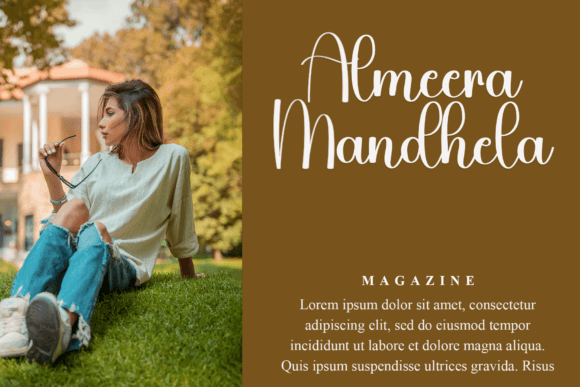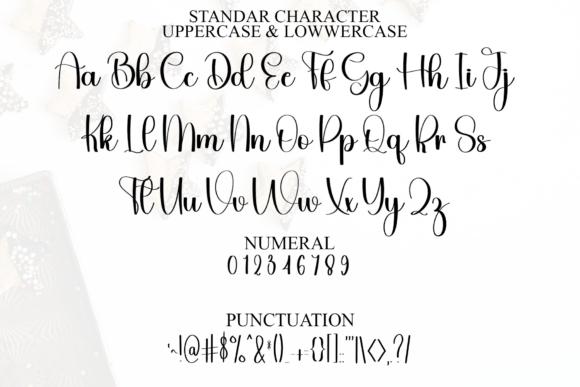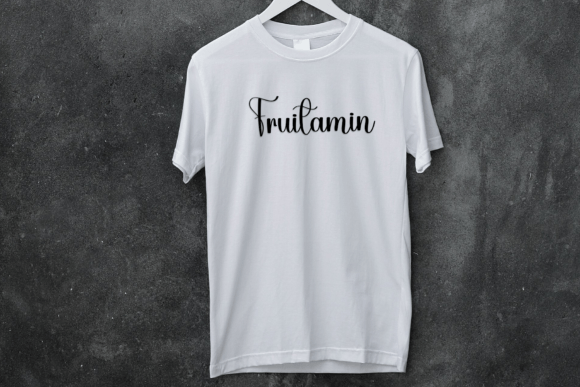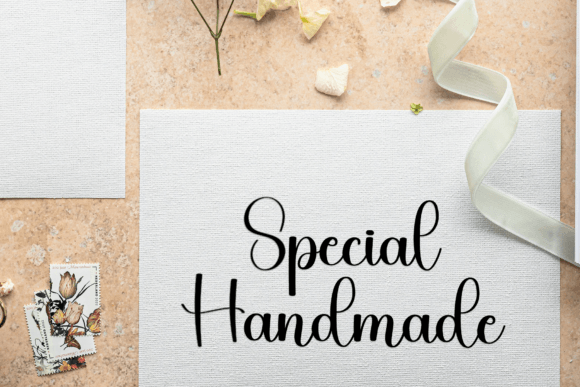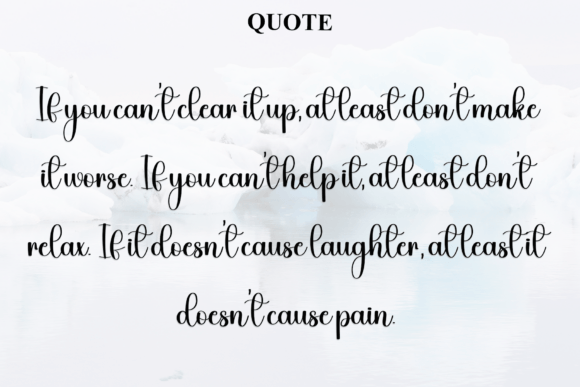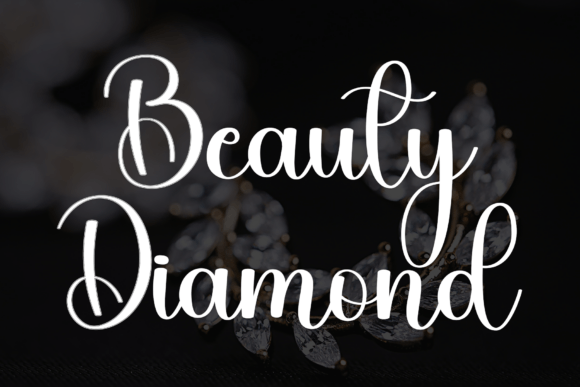
Diamond Handwriting Font: Elevate Your Designs with Elegance
Are you on the lookout for a font that can add a touch of sophistication and elegance to your designs? Look no further than the Diamond Handwriting Font. This beautiful, flowing handwritten font is perfect for designers and crafters who want to create stunning projects that stand out from the crowd. With its incredibly distinct and timeless style, Diamond Handwriting Font is sure to capture your heart and inspire your creativity.
What is Diamond Handwriting Font?
Diamond Handwriting Font is a carefully crafted font that boasts an elegant touch, making it ideal for a wide range of projects. Whether you’re designing a logo, creating a social media graphic, or crafting a beautiful wedding invitation, this font is sure to impress. Its flowing script and delicate lines give it a unique and sophisticated look that’s sure to elevate your designs to the next level.
Key Features of Diamond Handwriting Font
- Elegant and Sophisticated: Diamond Handwriting Font features a beautiful, flowing script that’s perfect for creating elegant and sophisticated designs.
- Timeless Style: This font’s classic style ensures that your designs will never go out of fashion, making it a great investment for designers and crafters.
- Distinct and Readable: The font’s unique and clear script makes it easy to read, even at smaller sizes, ensuring that your message is always communicated effectively.
- Versatile: Diamond Handwriting Font can be used for a wide range of projects, from logos and branding to social media graphics, invitations, and more.
Why Choose Diamond Handwriting Font?
With so many fonts available, why choose Diamond Handwriting Font? Here are just a few reasons why designers and crafters love this beautiful font:
- Unique Style: Diamond Handwriting Font offers a unique and distinctive style that’s sure to set your designs apart from the crowd.
- Ease of Use: This font is easy to use and pairs well with a variety of other fonts, making it perfect for creating stunning designs.
- High-Quality: Diamond Handwriting Font is a high-quality font that’s been carefully crafted to ensure that it looks great in any design.
How to Use Diamond Handwriting Font
Using Diamond Handwriting Font is easy. Here are a few tips to get you started:
- Pair it with Other Fonts: Diamond Handwriting Font pairs well with a variety of other fonts, so don’t be afraid to experiment and find the perfect combination for your design.
- Experiment with Sizes: This font looks great at a range of sizes, from small and delicate to large and bold.
- Add a Personal Touch: Use Diamond Handwriting Font to add a personal touch to your designs, whether you’re creating a custom logo or a beautiful wedding invitation.
Diamond Handwriting Font is perfect for a wide range of projects, including:
- Wedding Invitations: Create beautiful, elegant wedding invitations that set the tone for a stunning celebration.
- Logos and Branding: Use Diamond Handwriting Font to create a unique and sophisticated logo that reflects your brand’s personality.
- Social Media Graphics: Create stunning social media graphics that showcase your brand’s style and personality.
- Stationery and Cards: Add a touch of elegance to your stationery and cards with Diamond Handwriting Font.
Diamond Handwriting Font is a beautiful, elegant font that’s perfect for designers and crafters who want to create stunning designs. With its timeless style, distinct script, and ease of use, this font is sure to become a favorite in your design arsenal. So why wait? Fall in love with Diamond Handwriting Font and start creating spectacular designs today!